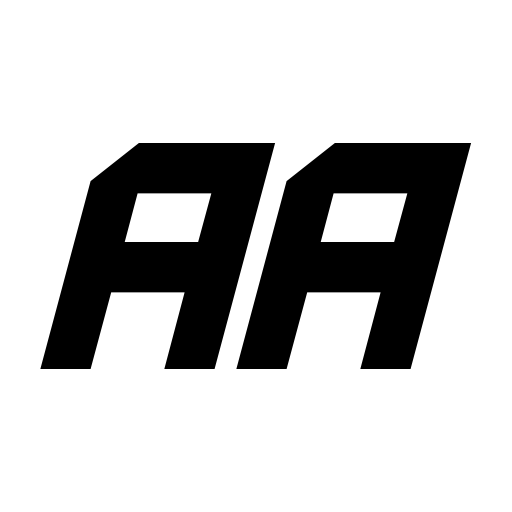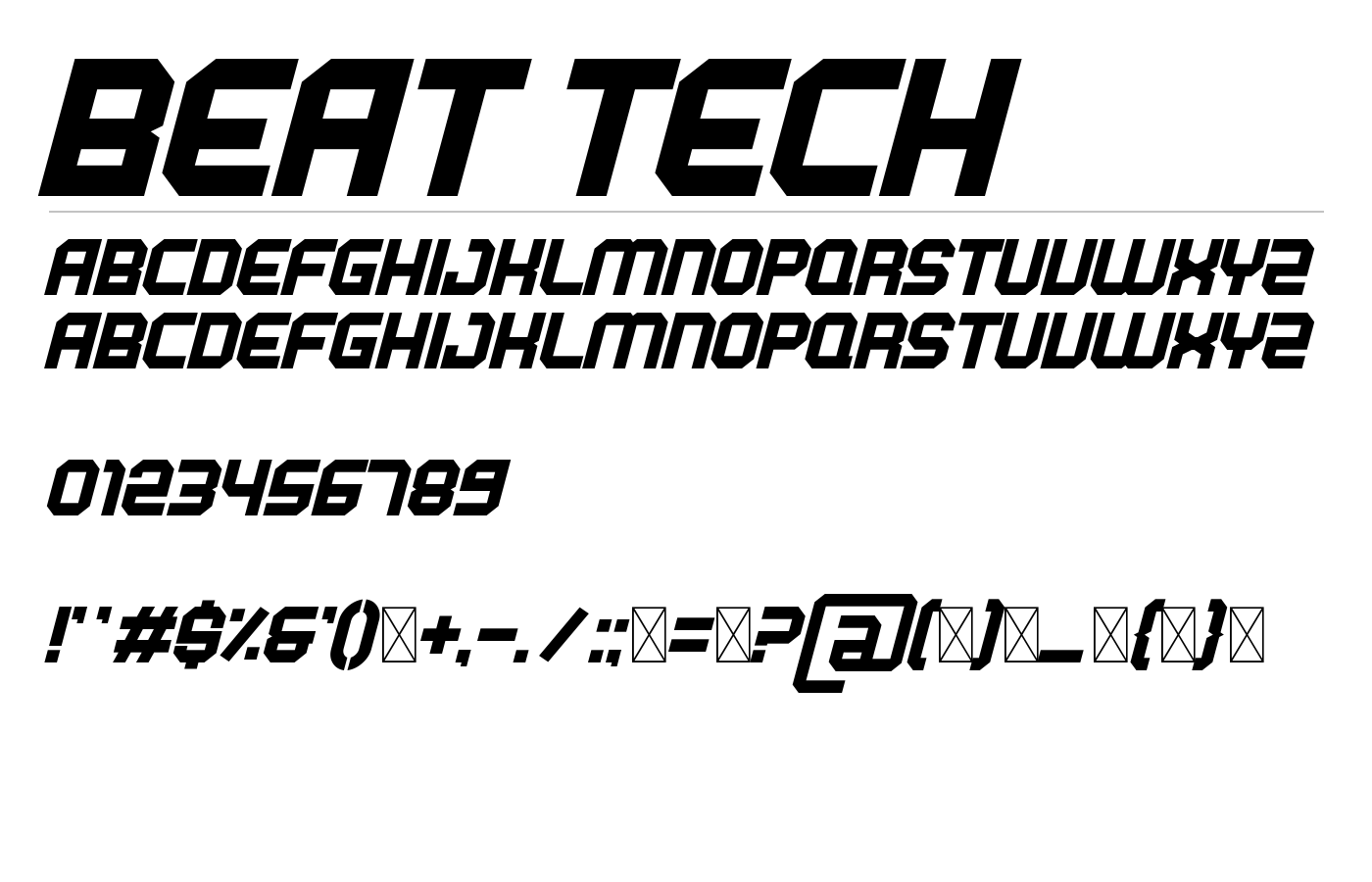
BEAT TECH is a bold, condensed sans serif font with a strong futuristic vibe, characterized by its sharp angles and slanted italic style that conveys dynamic movement. Its high x-height and geometric shapes make it highly visible and impactful, ideal for technology-focused brands, sports, or modern editorial projects seeking a sleek, energetic look. This font works best in headlines, logos, and display uses where a bold, cutting-edge impression is desired.
BEAT TECH Font
About BEAT TECH Font